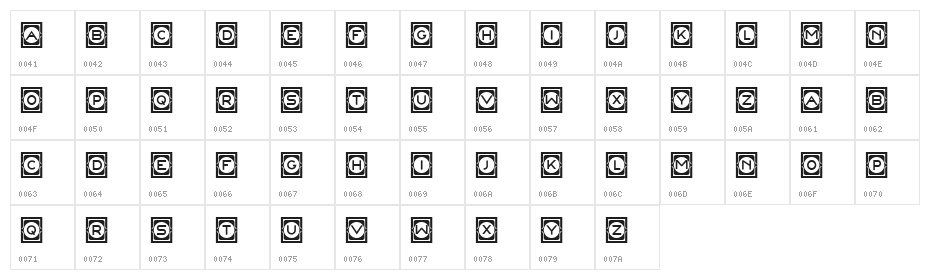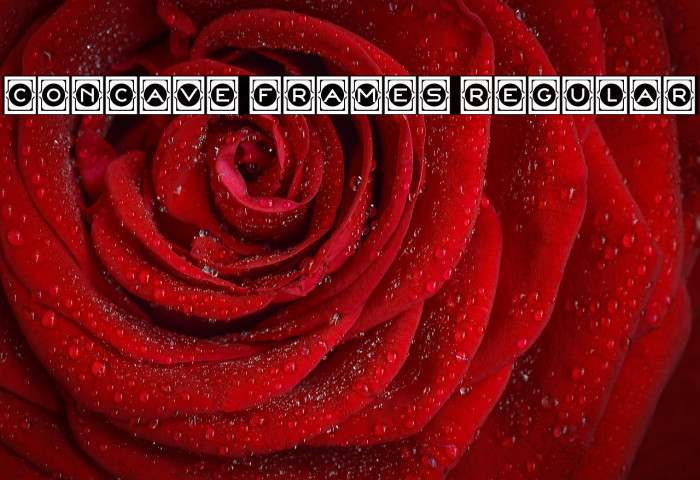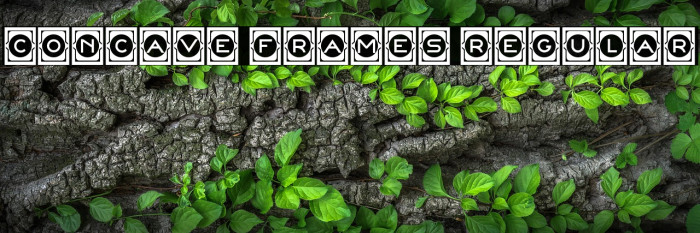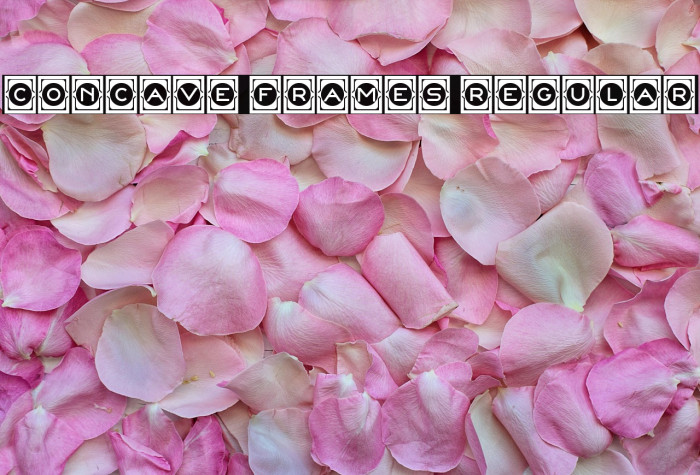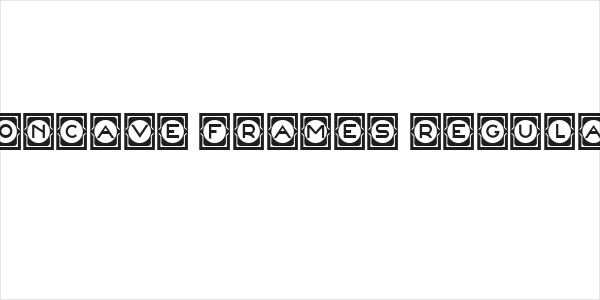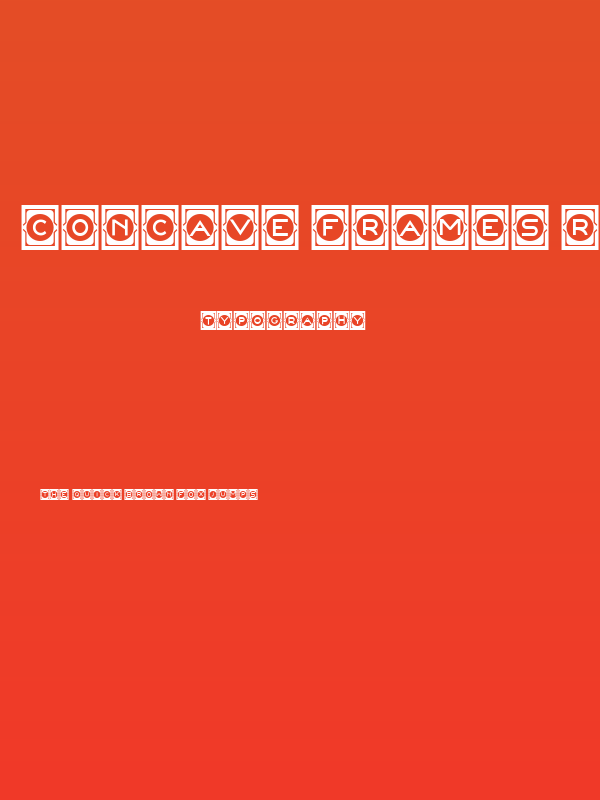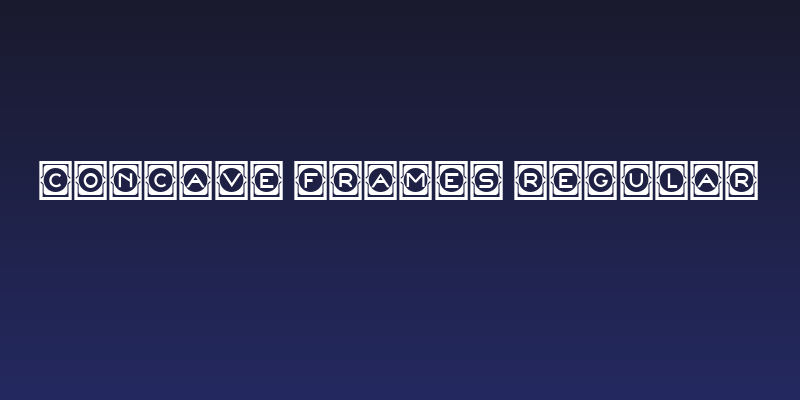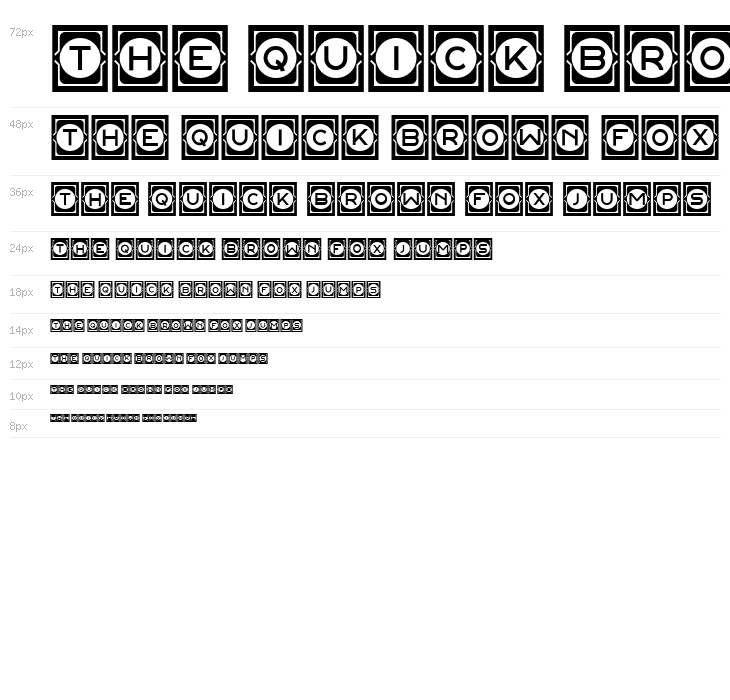
Concave Frames Regular Font
Concave Frames Regular Description
This font features a unique design where each character is enclosed within a concave frame, creating a striking visual effect. The letters are bold and geometric, with a consistent thickness throughout, giving them a modern and structured appearance. The use of frames adds a decorative touch, making the font stand out. The characters are evenly spaced within their frames, ensuring readability while maintaining a distinct style. This font is ideal for projects that require a bold and eye-catching typeface.
| Proposed Projects | Ideal for posters, logos, and branding materials that require a bold and distinctive look. |